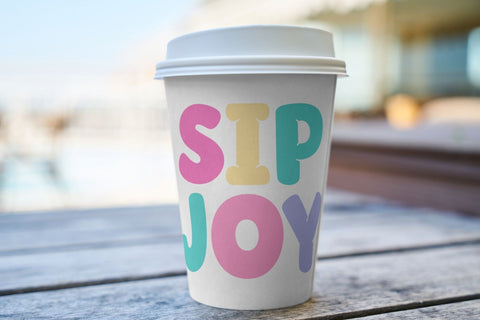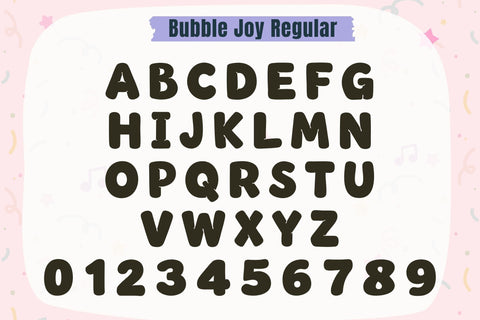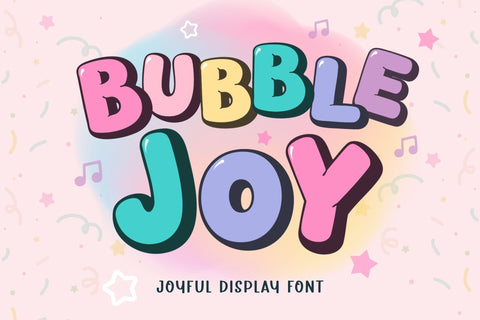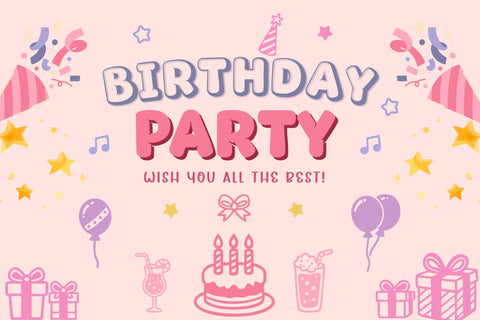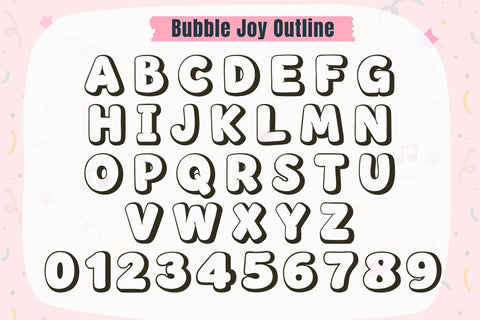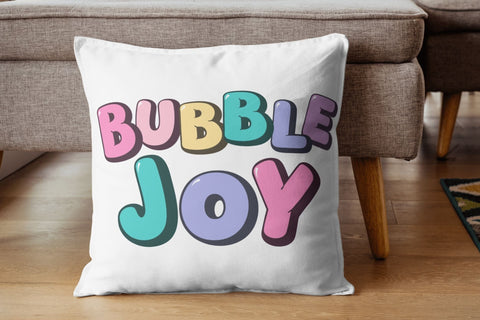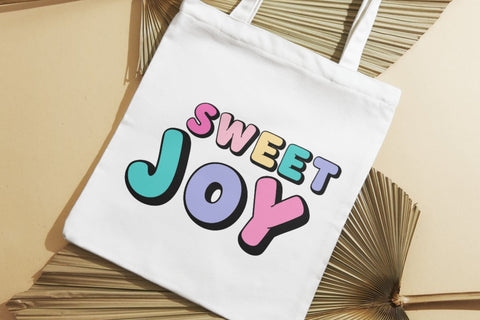
Bubble Joy – Playful Bubble Font (Regular & Outline
Bubble Joy is a bubbly, kid-friendly font. Two font styles—Regular and Outline—layer neatly for colorful results. Use this font on party invitations, shirts, mugs, stickers, banners, and logos.